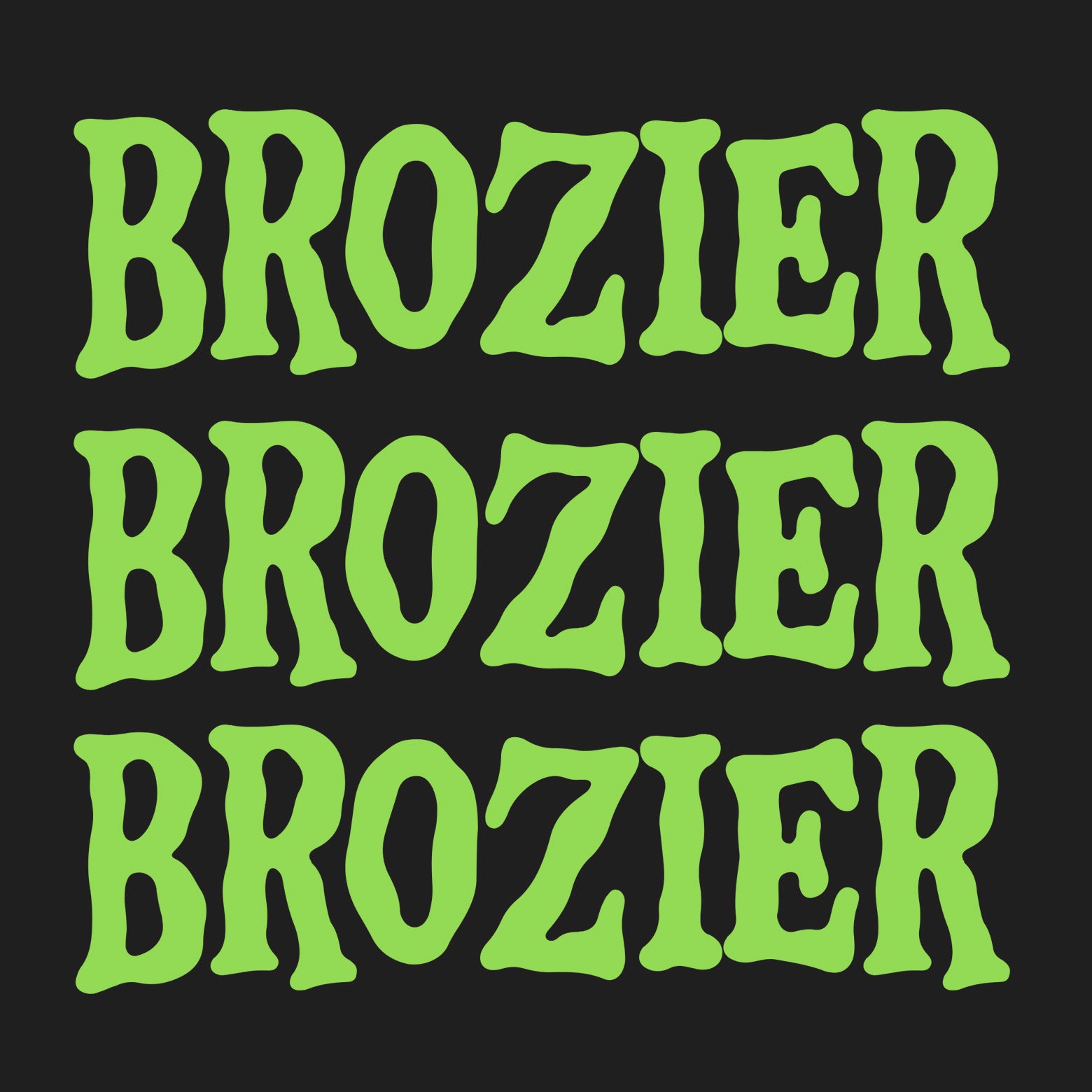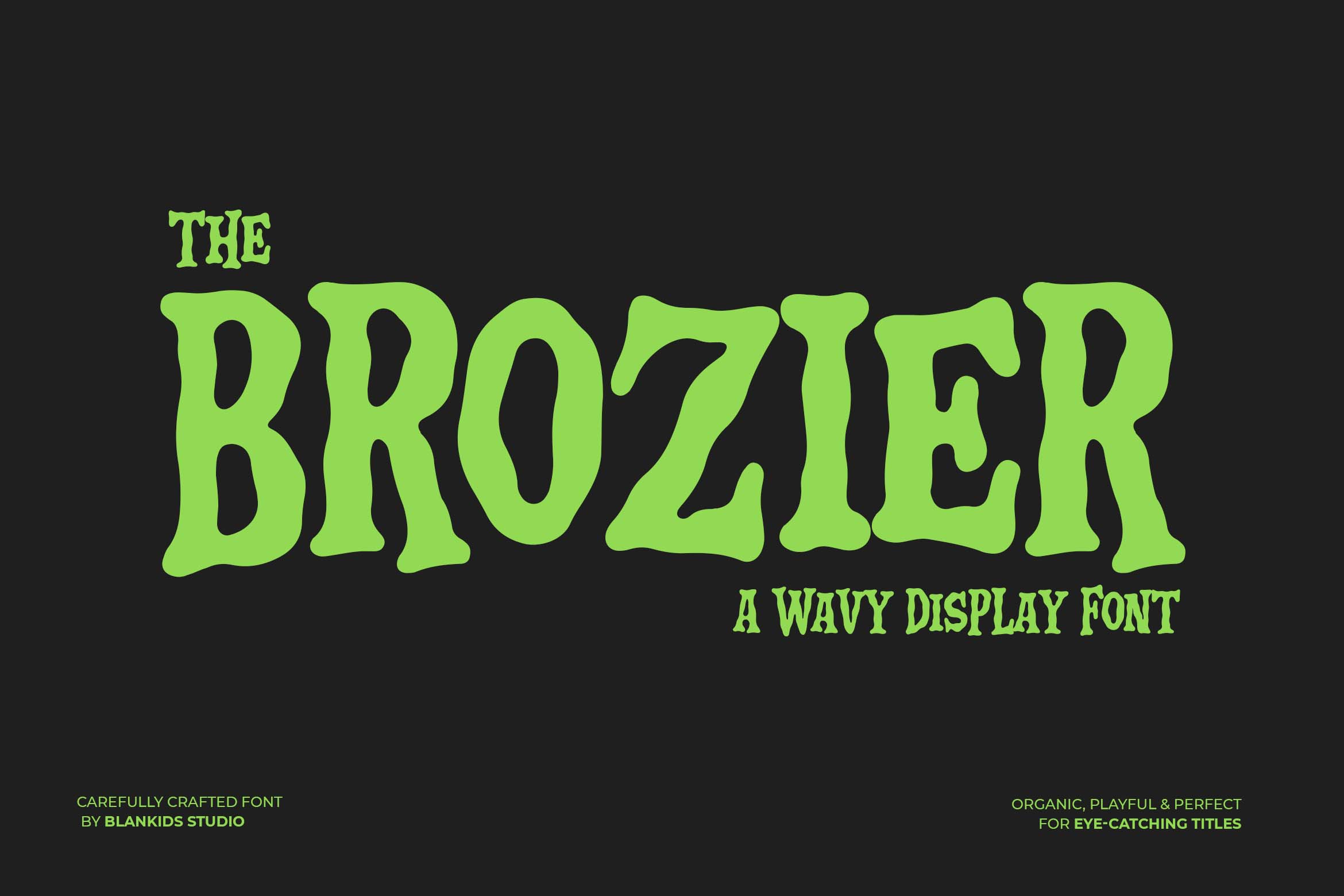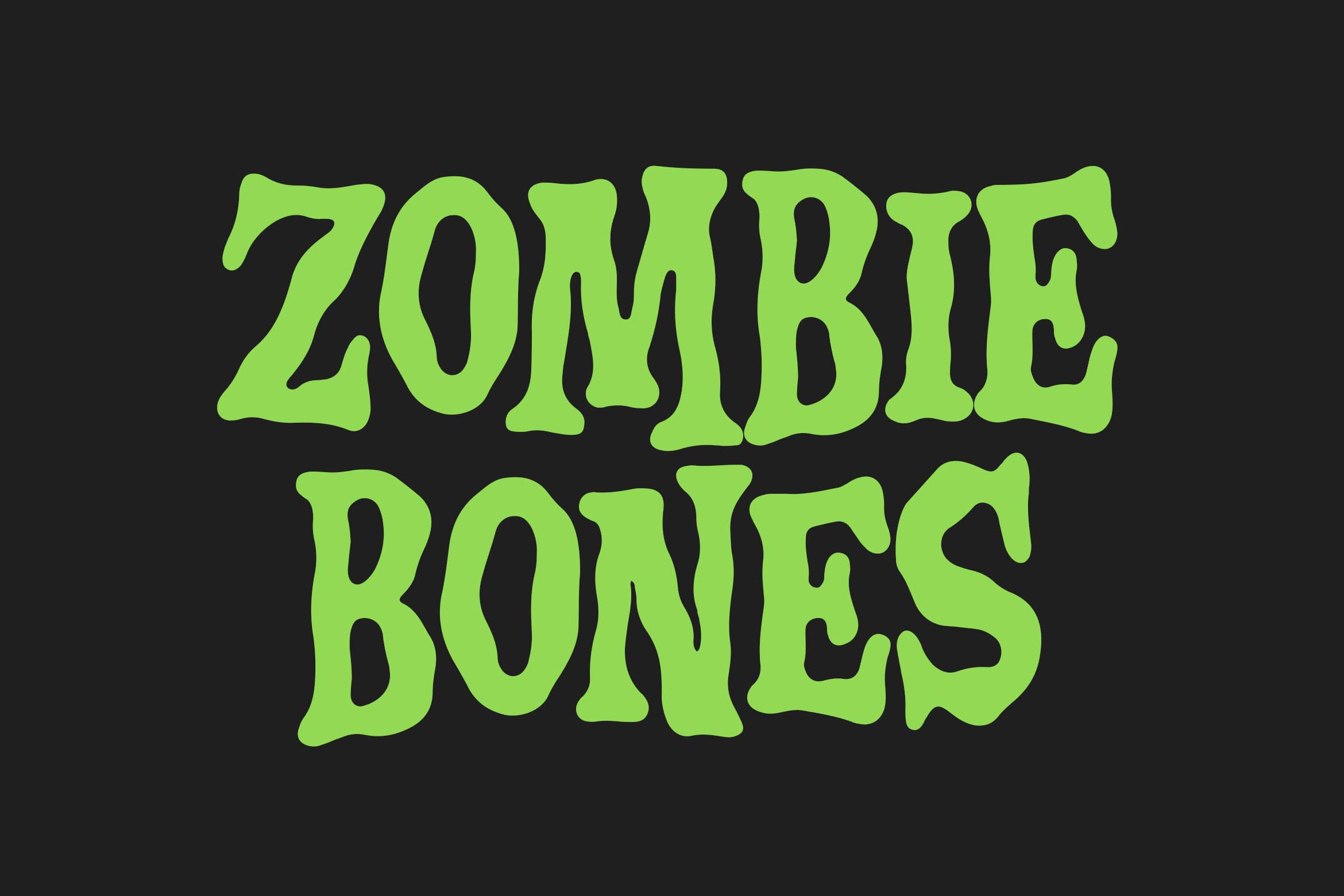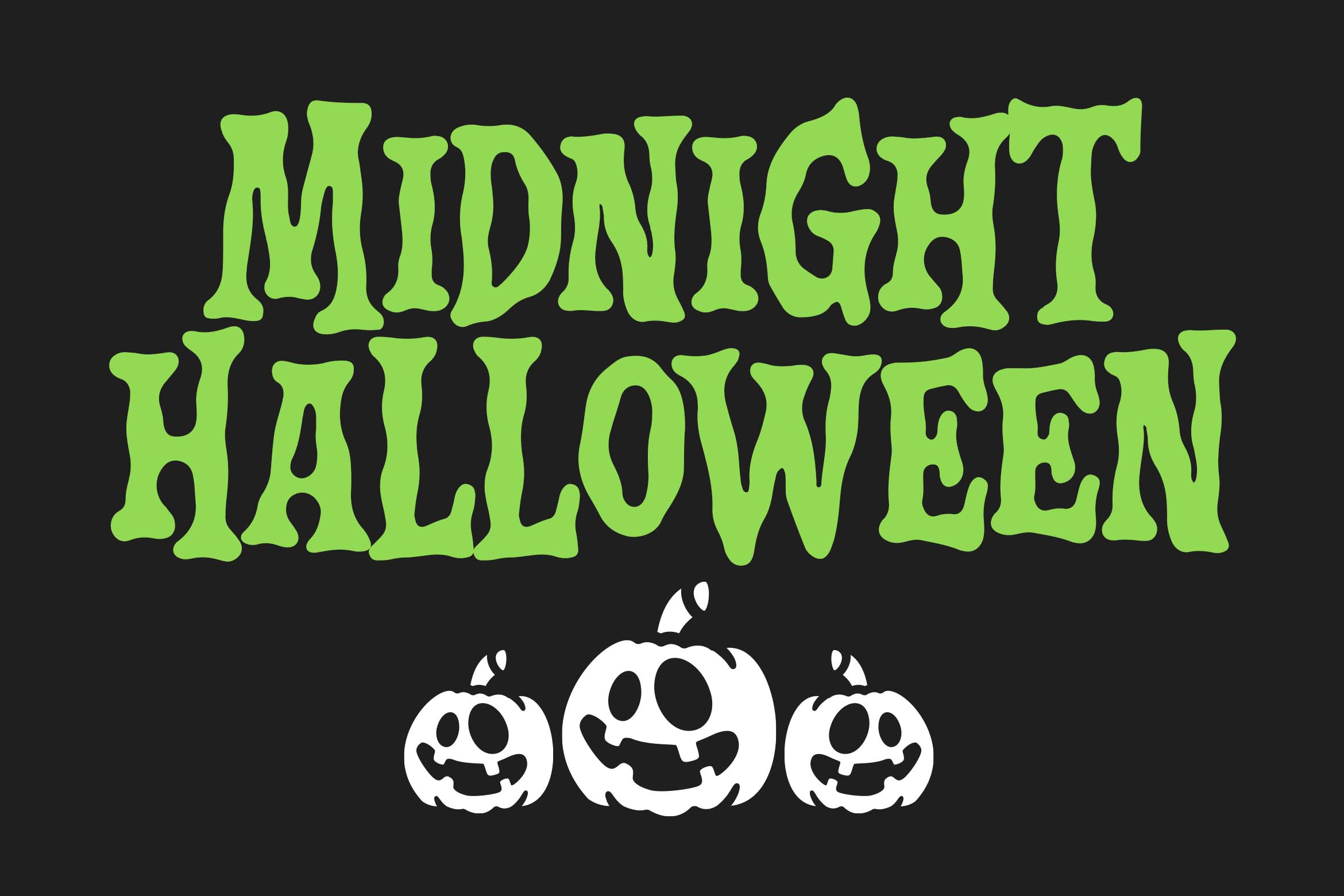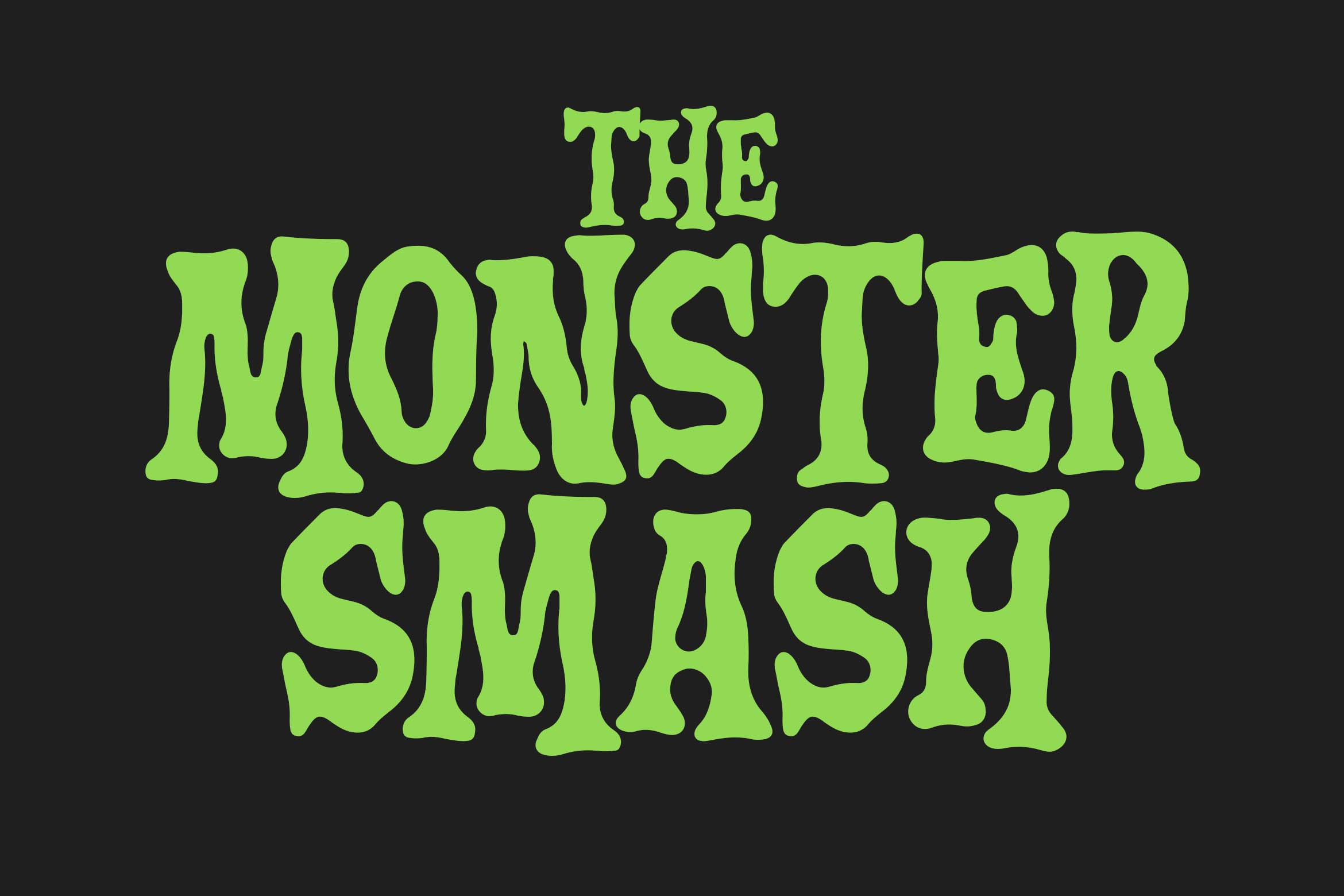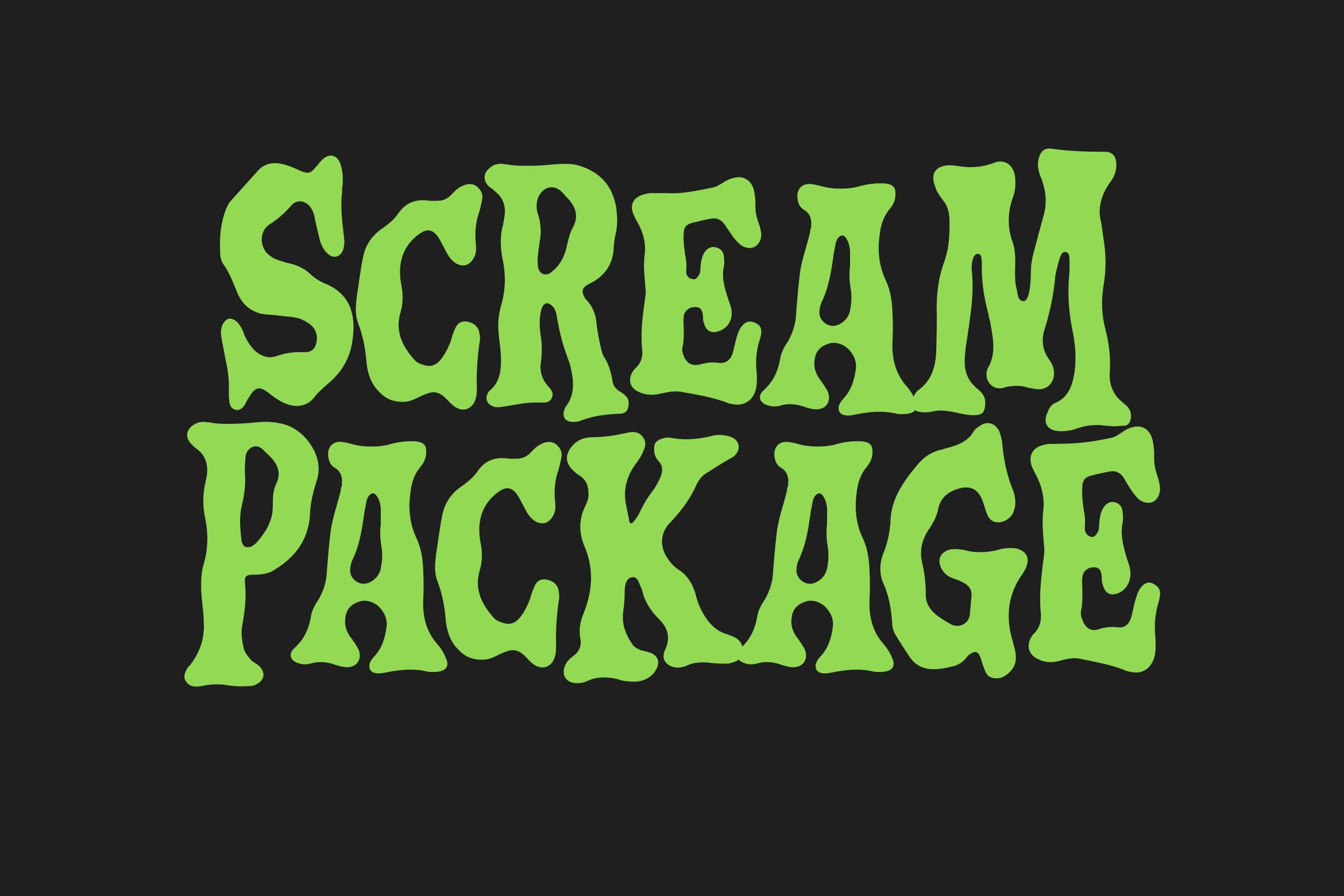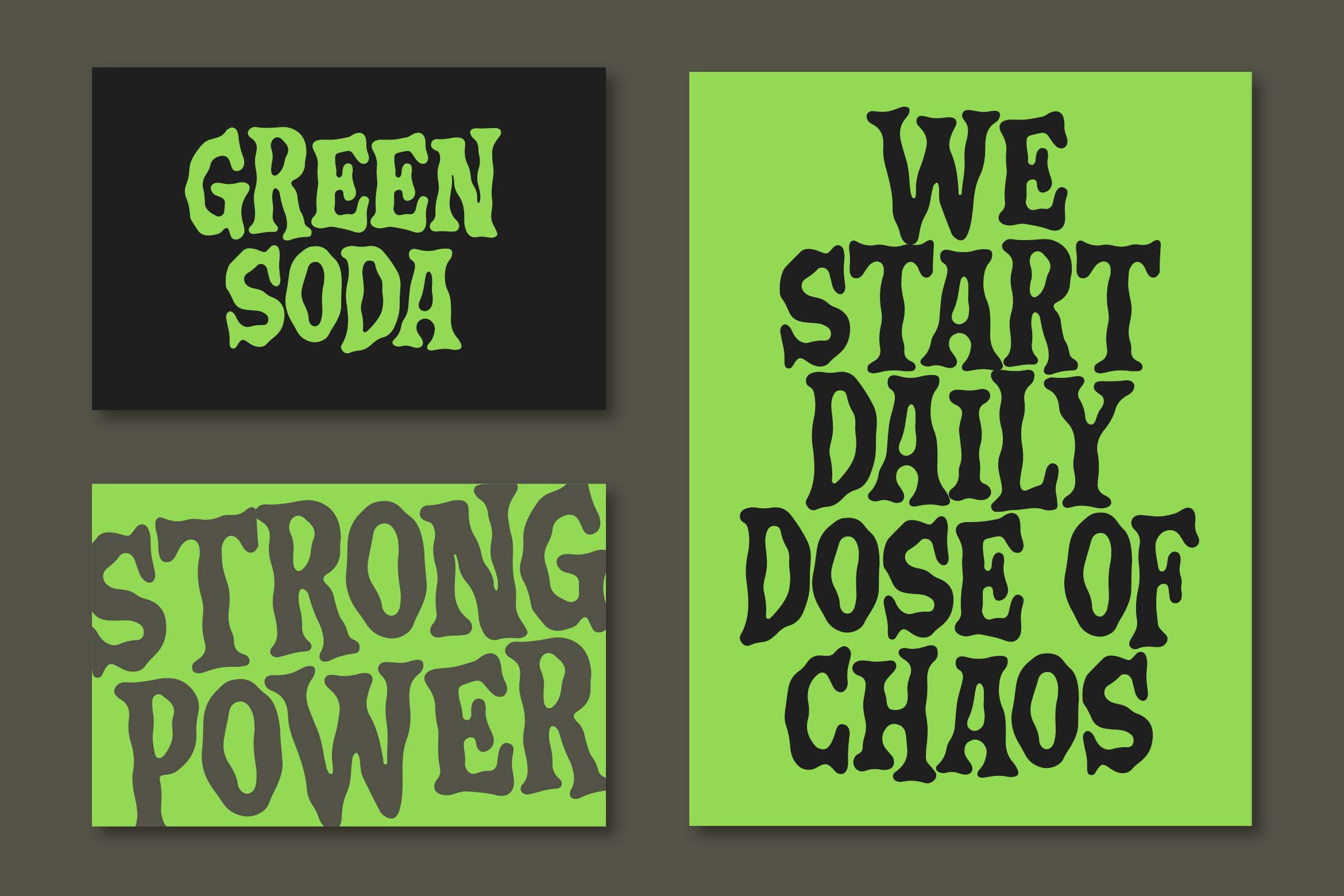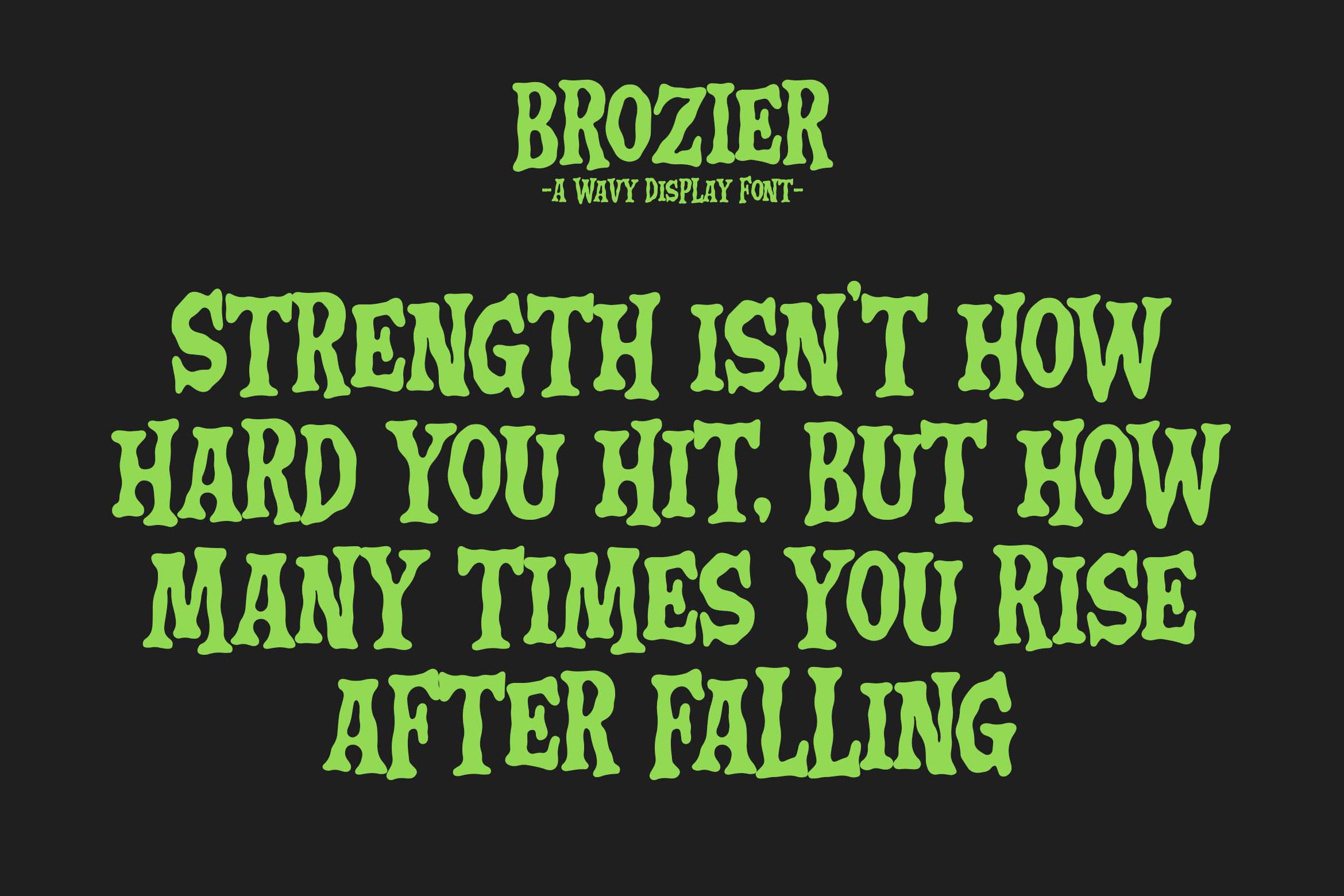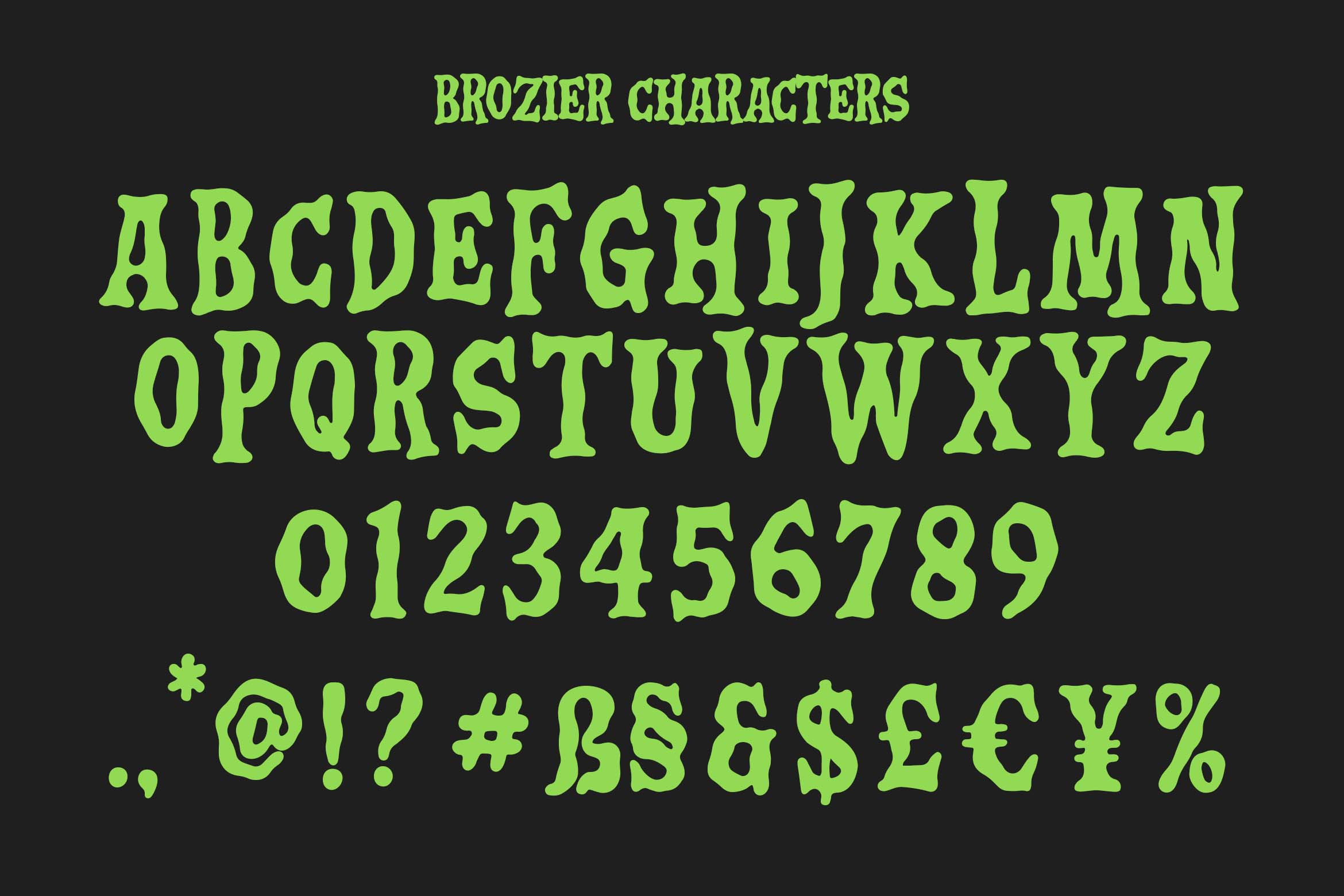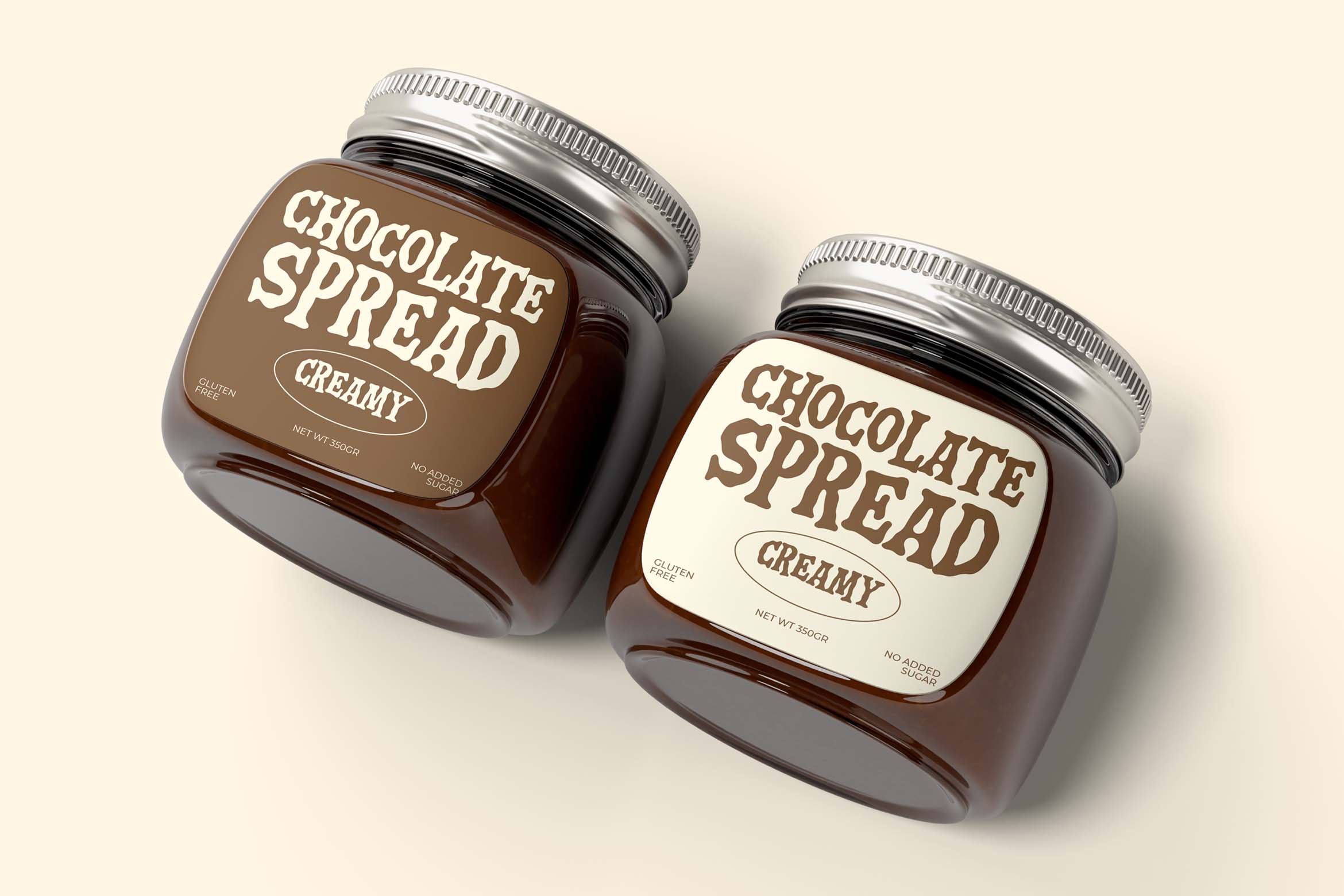
Brozier - a Wavy Display Font
BROZIER, a wavy display font that blends groovy vibes with a touch of creepy fun. Each letter drips with personality perfectly imperfect, playful, and full of attitude.
BROZIER is designed for creators who love standing out. Whether you’re working on a Halloween poster, band logo, album cover, streetwear design, or bold title art, this font adds instant energy and character to your work.
With its unique liquid shapes and retro-horror mood, BROZIER brings life to every word weird, wild, and wonderfully stylish.
Perfect for:
• Posters & Album Covers
• Halloween & Horror Themes
• Merchandise & Apparel
• Social Media Graphics
• Bold Branding Projects